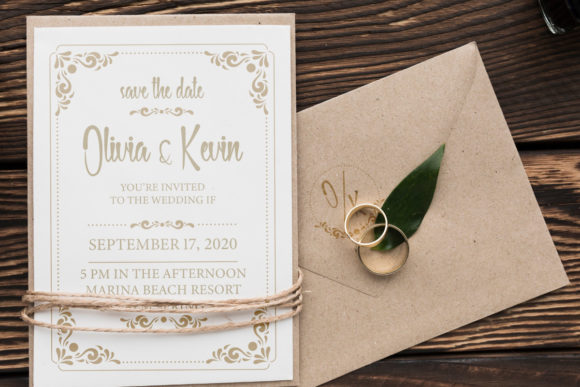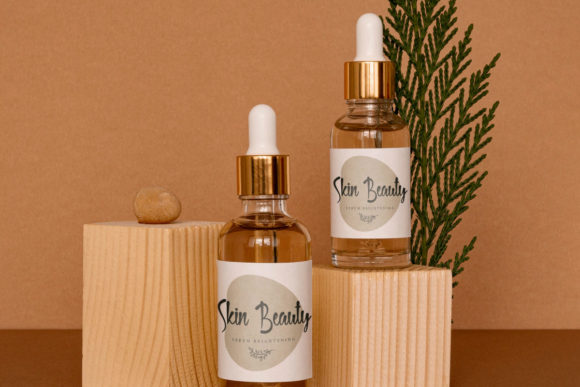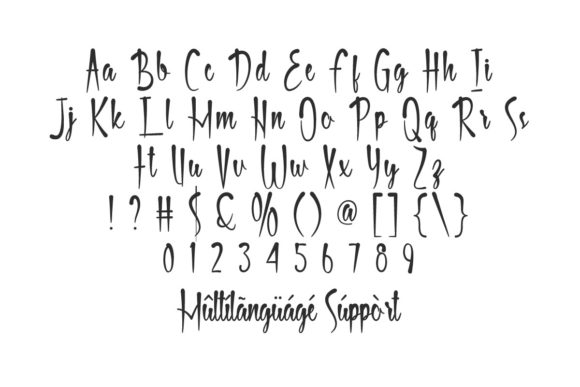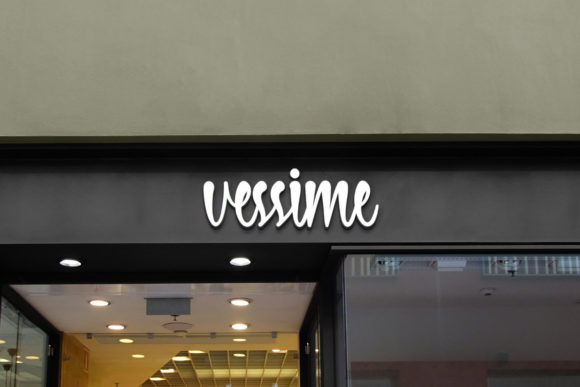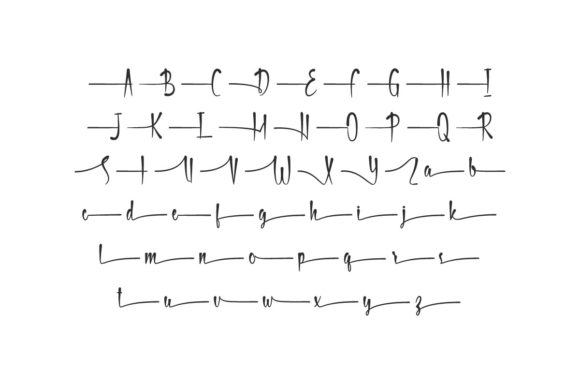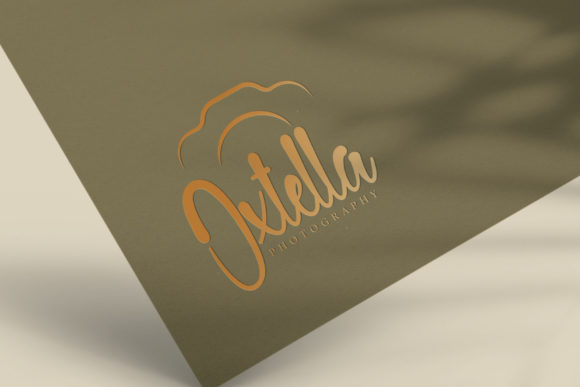
Introduction to Dream Party Font
Dream Party is a handwriting script font with a beautiful and classic style.
This font is perfect for many projects, logo branding, headings, invitation, lettering, products packaging, quotes, signage and many more Dream Party is PUA encoded which means you can access all of the glyphs and swashes with ease.
Key Features of Dream Party Font